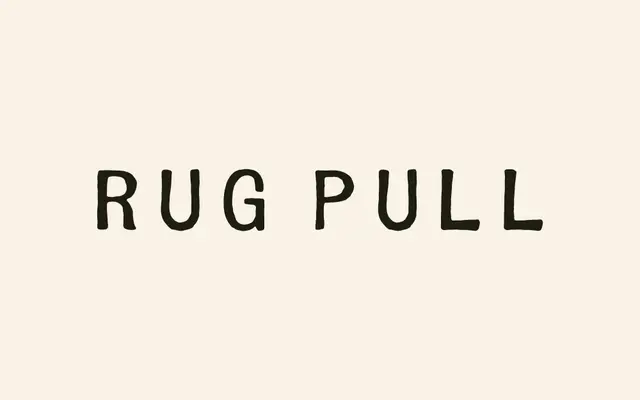
Rug Pull
A single-weight hand-drawn display face with deliberately irregular rhythm and worn, stamped character.
Built from hand-drawn lettering with a stamped, imperfect quality, it makes no attempt to disguise its rough edges or uneven spacing. That intentional irregularity gives it a tactile, analogue feel suited to branding, packaging and editorial headlines where a mechanical typeface would feel too polished. Covers Western European Latin including Icelandic and Welsh across 207 glyphs.
Described as stamped and hand-drawn with intentional irregularity in rhythm and spacing, placing it firmly in the hand-lettered display category rather than any formal type classification.